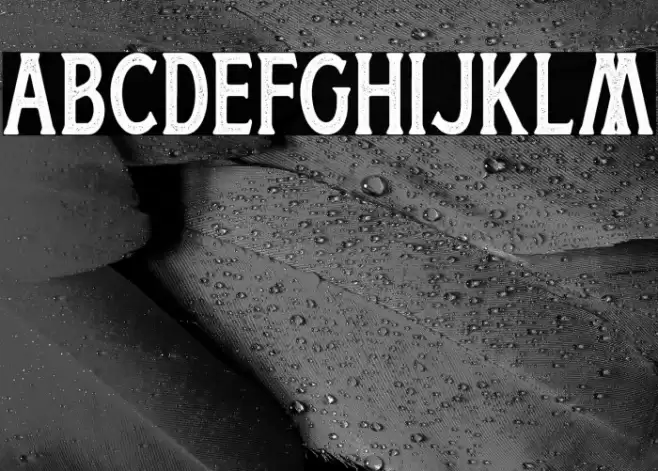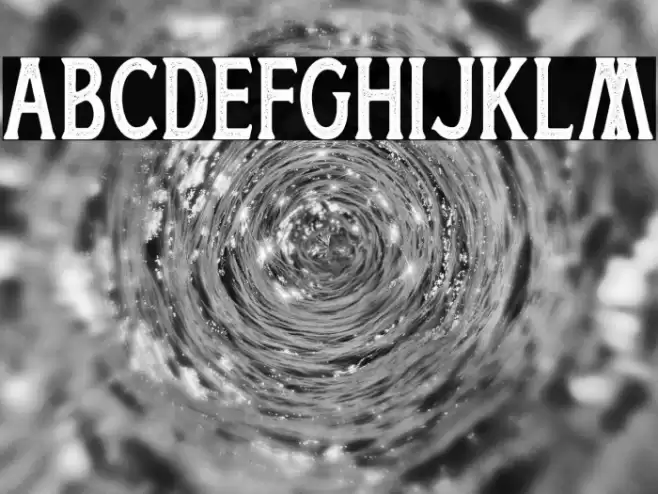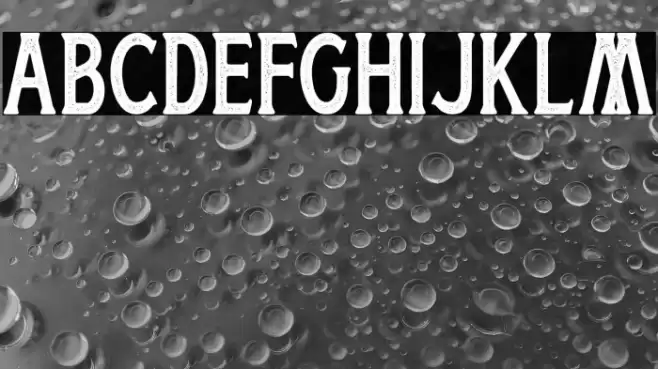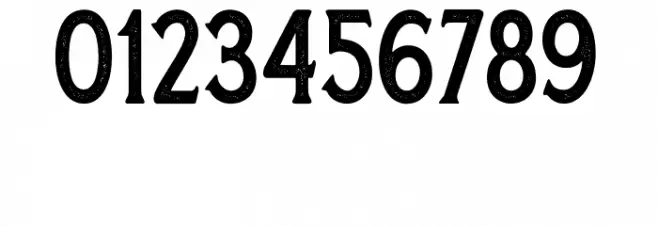
Boatman Stamped (Free Personal Use) Font
Boatman Stamped (Free Personal Use) Description
This font features a bold, stamped appearance with a textured, distressed look that gives it a vintage and rugged feel. The characters are uppercase with a consistent weight and a slightly condensed form, which adds to its bold presence. The texture within each letter mimics the effect of ink on paper, creating a unique, handcrafted aesthetic. This style is reminiscent of old typewriter fonts but with a modern twist, making it ideal for projects that require a touch of nostalgia or a rustic vibe.
A bold, textured font with a vintage, stamped appearance from Uncategorized fonts.
- Font: Boatman Stamped (Free Personal Use)
- Proposed Projects: Ideal for branding, posters, packaging, and any design project that seeks a vintage or handcrafted look.
- Overall Style: Vintage